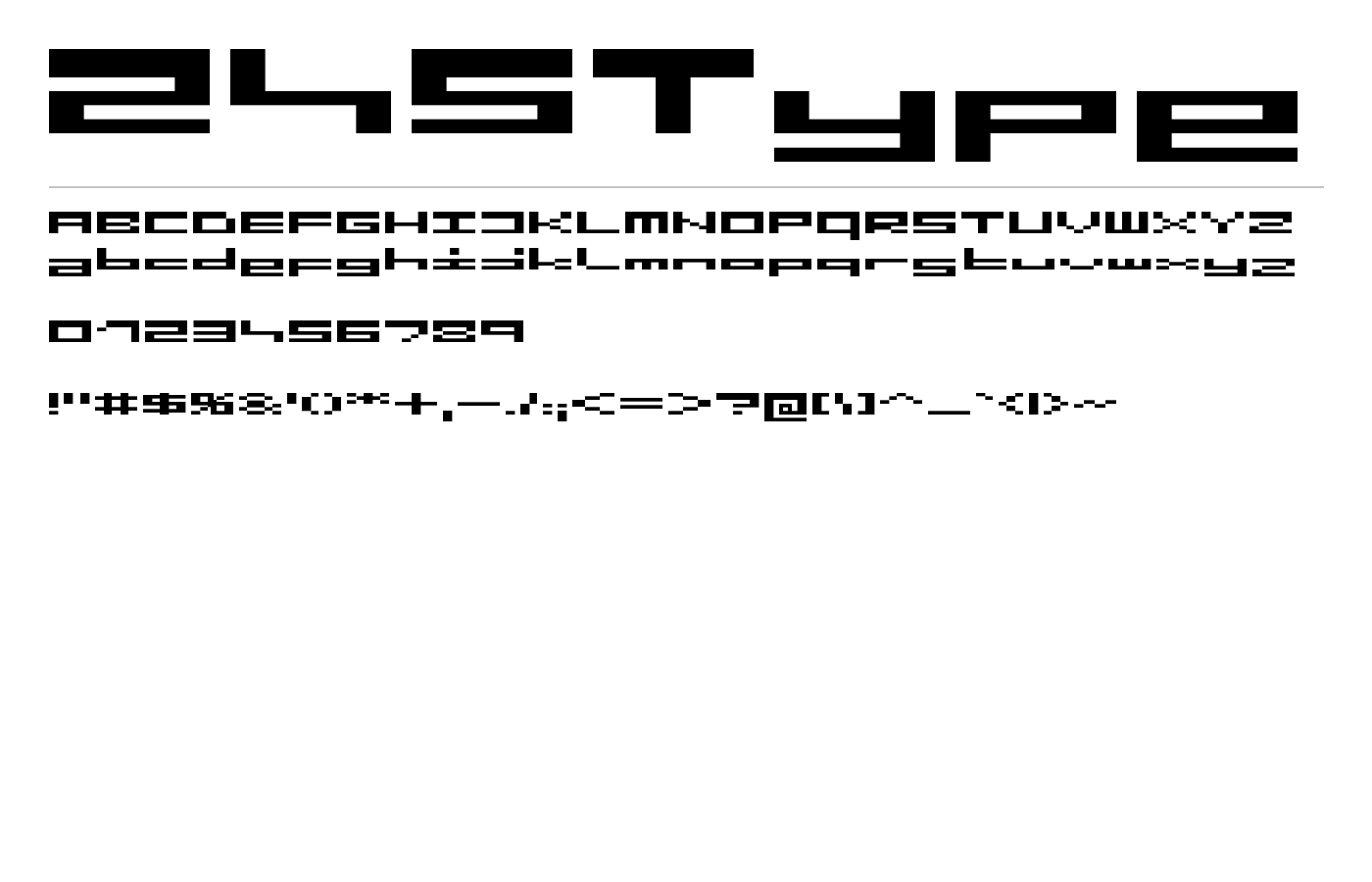
245Type Font is a bold, geometric sans serif with a futuristic and digital-inspired style. Its blocky letterforms and pixelated edges give it a techno, almost technical feel, making it well-suited for tech, gaming, or science fiction branding and headlines where a strong, modern presence is needed. This font stands out best in display use, adding an edgy and innovative vibe to posters, logos, and digital interfaces.
245Type Font
About 245Type Font
| Font family | 245Type Font |
| Designer | Matija_245 |